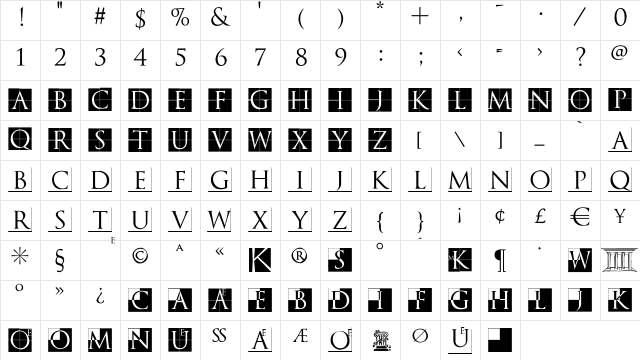
TrajanusBriX-Invers Regular
Design Context for TrajanusBriX-Invers Typeface
TrajanusBriX-Invers offers clean, dependable letterforms without strong stylistic allegiance, making it a practical choice for designers who need flexibility.
Pro Tip: Use TrajanusBriX-Invers in both headline and body roles to test its range before committing to a single application.